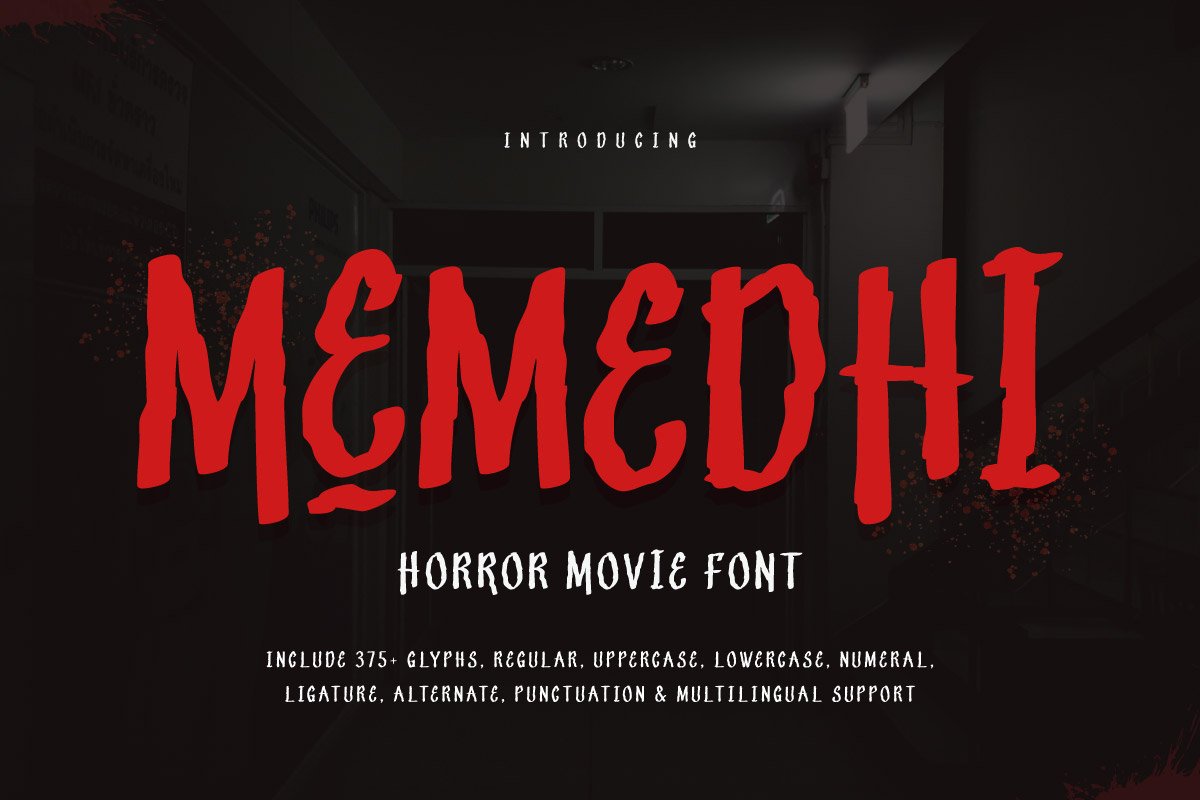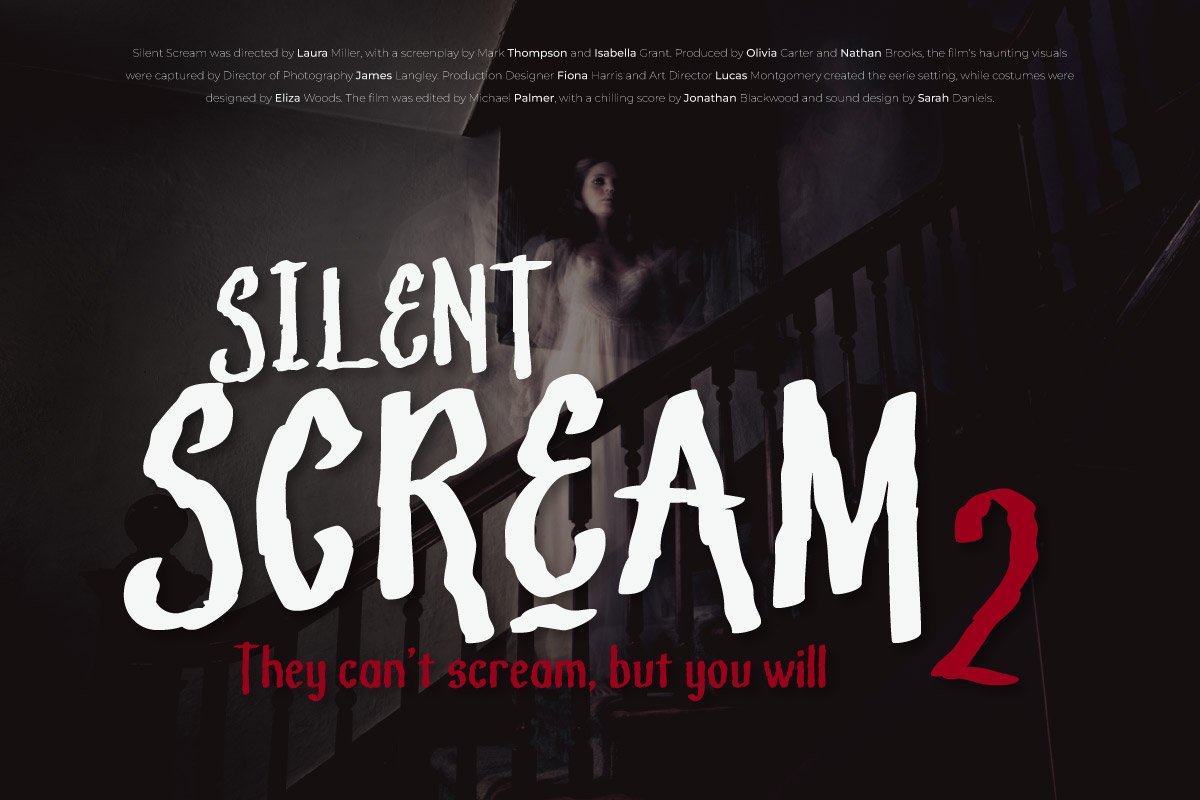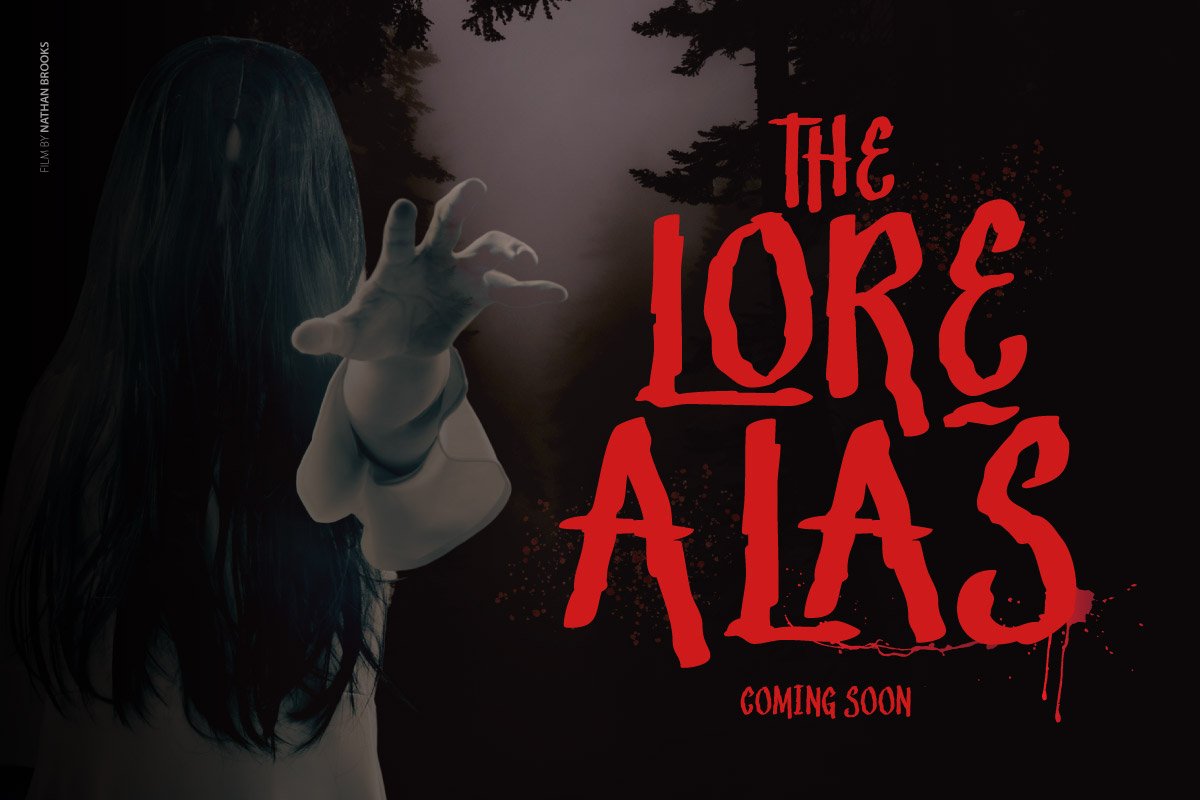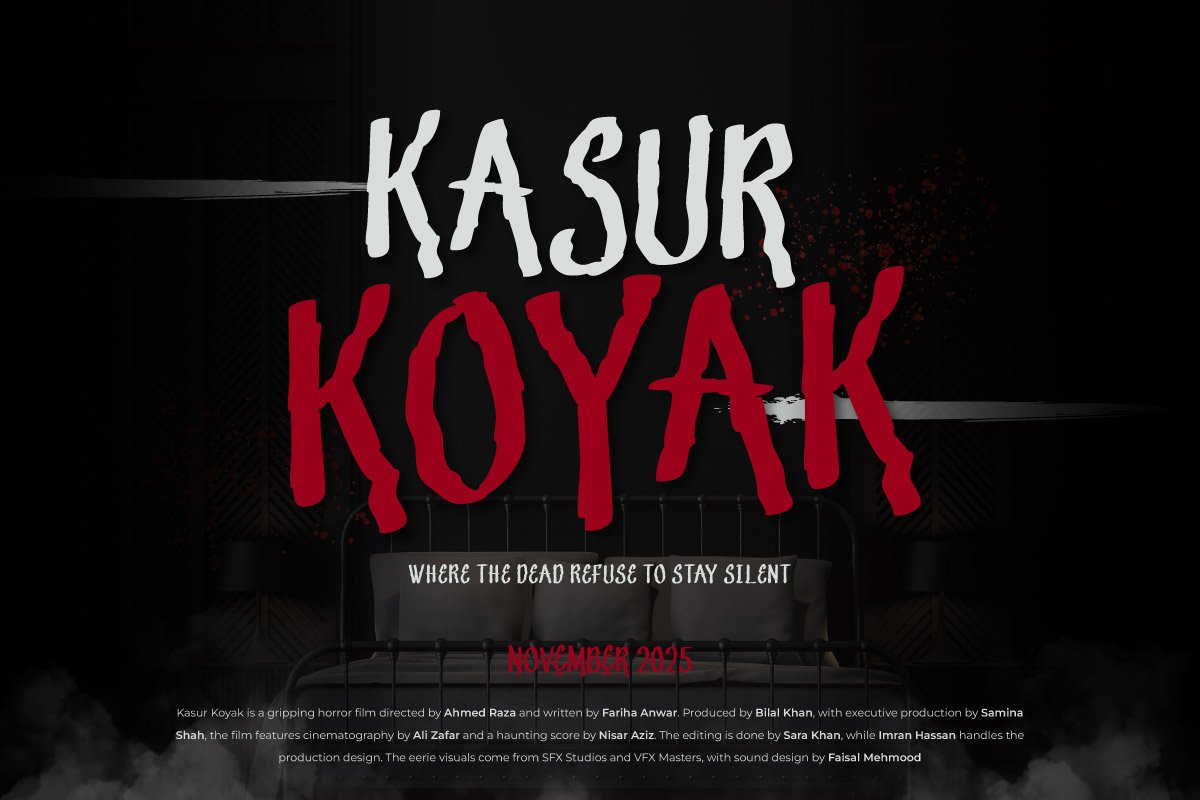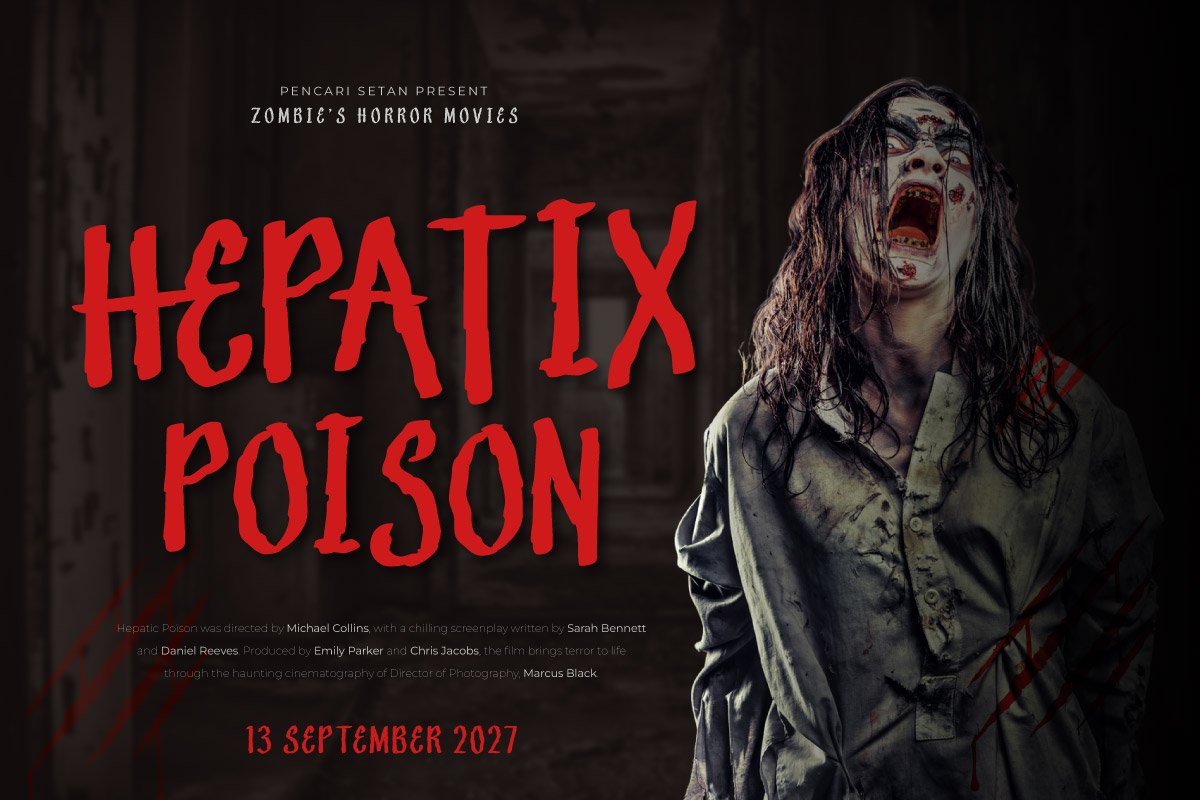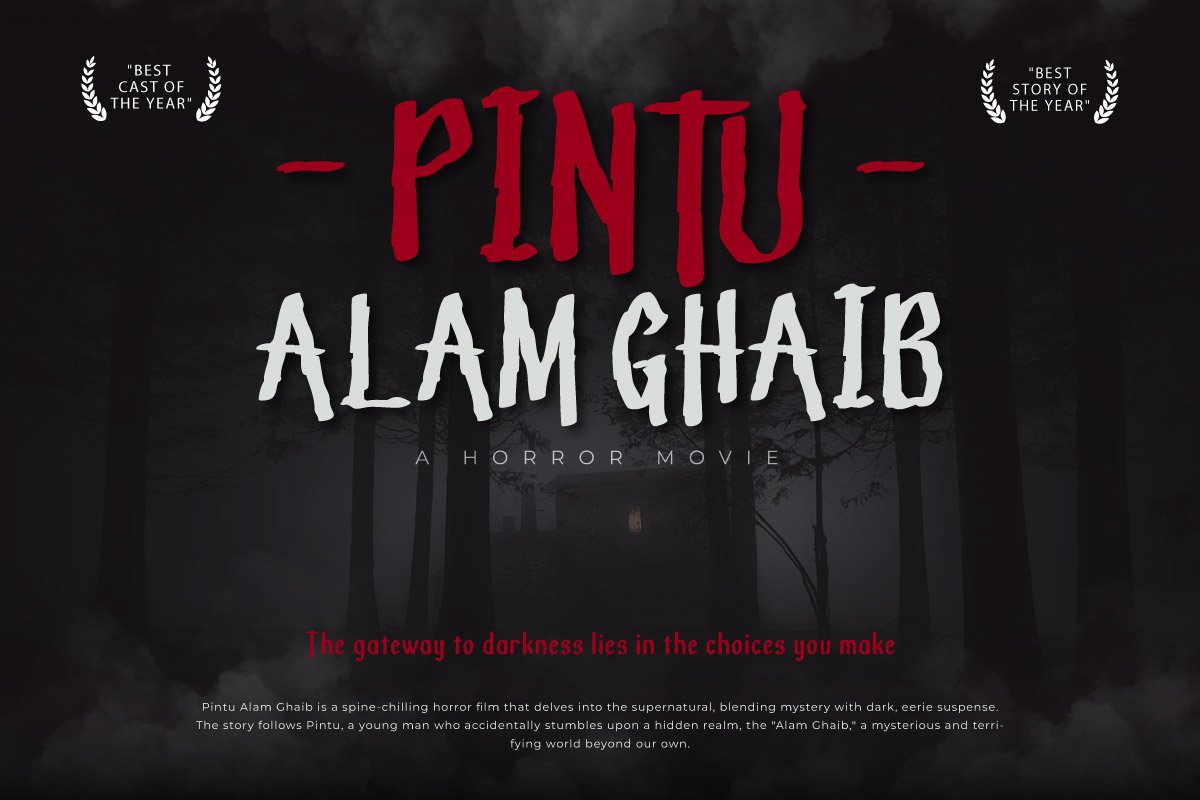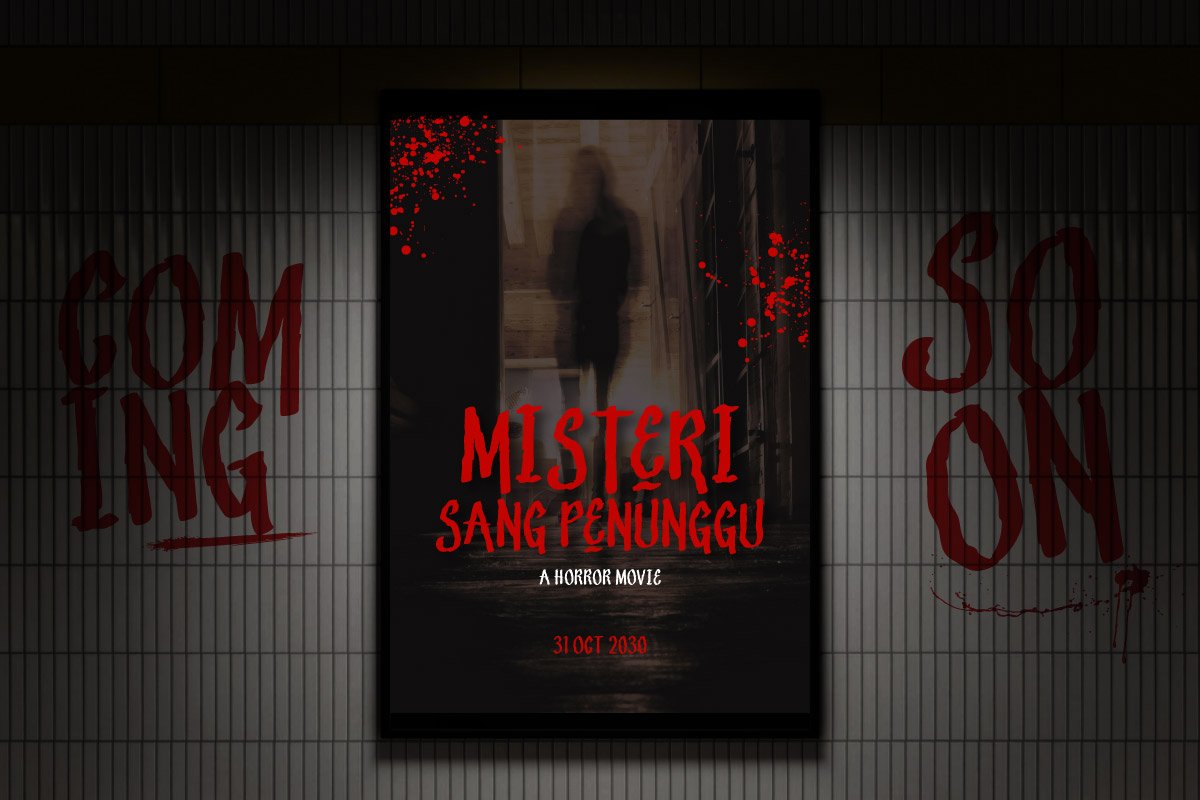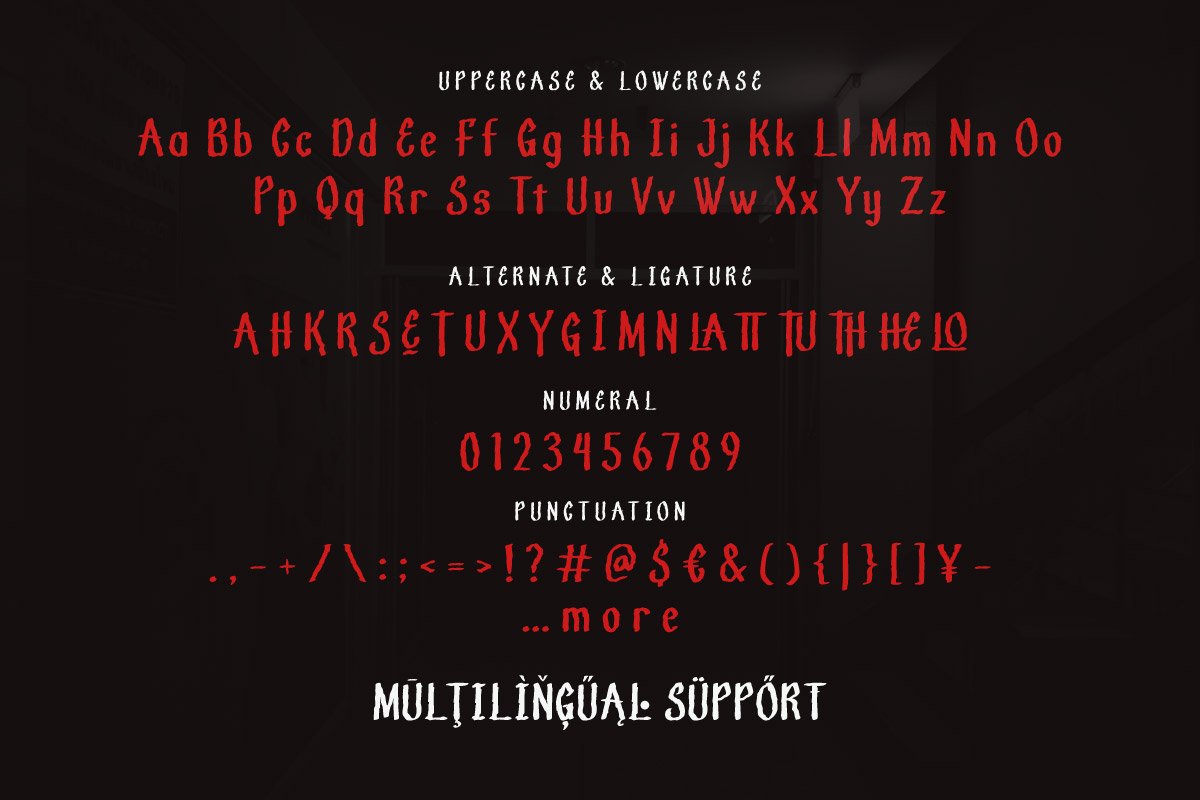
Memedhi – Horror Movie Font
Memedhi is a bone-chilling horror movie font designed to capture the essence of fear and suspense. With its distorted, sharp, and eerie letterforms, this font evokes a sense of dread, making it the perfect choice for horror movie posters, thriller book covers, haunted house flyers, Halloween events, and dark-themed branding.
Inspired by classic horror films and supernatural aesthetics, Memedhi brings an unsettling atmosphere to any design. Its uneven strokes and shadowy appearance create a terrifying visual impact, ensuring that your audience feels the suspense even before reading the content.
Whether you’re designing for cinematic horror projects, ghost stories, or gothic branding, Memedhi delivers the ultimate creepy touch. Let your designs scream with terror using this hauntingly powerful typeface!